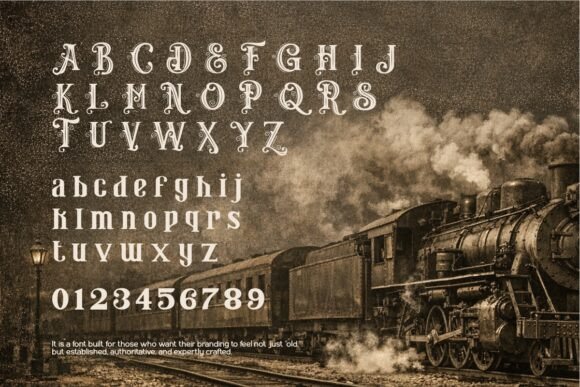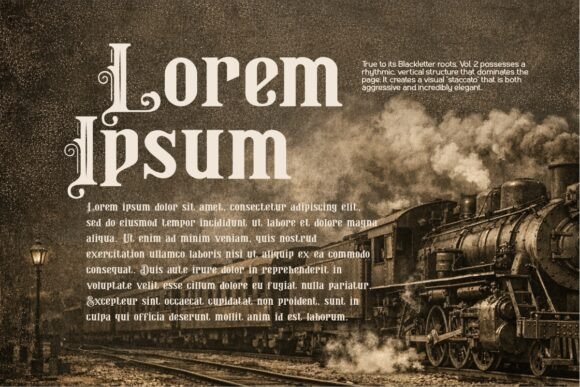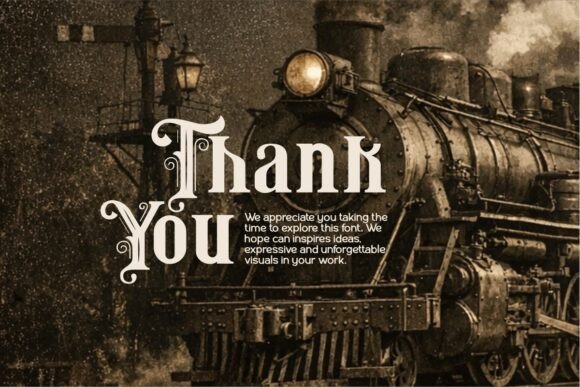
Introduction to Old Victorian Vol 2 Font
Imagine you’re sitting in a quaint antique shop, surrounded by dusty vases and vintage trinkets. As you browse through the shelves, your eyes land on an intricately designed invitation, adorned with the elegant script of the Old Victorian Vol 2 Font. The soft glow of the shop’s lamp highlights the font’s intricate details, transporting you to a bygone era of sophistication and refinement. This is the magic of the Old Victorian Vol 2 Font – a design resource that effortlessly evokes the charm of a bygone era.
As a designer, you understand the value of having a high-quality design resource at your fingertips. The Old Victorian Vol 2 Font is a free download that can add a touch of timeless elegance to any creative project. Whether you’re crafting invitations, signage, or any other project that calls for a dash of historic charm, this font is sure to impress. With its transparent background and high-quality design, you can be sure that your project will stand out from the crowd.
Key Features of Old Victorian Vol 2 Font
- High-quality, vintage-inspired font design ideal for creative projects and design resources.
- Transparent background allows for seamless integration into your design, making it a valuable design resource.
- Unique characteristics include intricate details, ornate flourishes, and classic typography, perfect for adding an old-world charm to your design.
- Designed with high resolution in mind, ensuring it looks crisp and clear on a variety of devices and screen sizes.
Honest Review: Old Victorian Vol 2 Font
I recently stumbled upon the Old Victorian Vol 2 Font and was excited to put it to the test in one of my creative projects. I’m happy to report that it’s a fantastic addition to any design resource collection.
What works well: ✨ The font’s nostalgic feel immediately adds a touch of elegance to any design. I particularly love the wide range of characters available, which makes it perfect for titles and headings. The high quality of the font is also noticeable, even at larger sizes.
What I liked most about this font is its versatility. It’s perfect for creating invitations, greeting cards, or even branding materials. The transparent background option is also a great feature, allowing for seamless integration with any design element.
- Wide range of characters
- Nostalgic feel
- Perfect for titles and headings
Limitations: ⚠️ One thing to note is that the font might not be the best choice for modern or tech-savvy designs, as its vintage aesthetic may clash with more contemporary styles.
Overall, I’m thoroughly impressed with the Old Victorian Vol 2 Font and would highly recommend it to designers looking for a unique and high-quality design resource. It’s definitely worth adding to your collection, especially if you’re working on a creative project that requires a touch of nostalgia.
Design Resource for Creative Projects
The Old Victorian Vol 2 Font is a high-quality design resource ideal for creative projects, such as invitations, posters, and business cards. Its elegant and vintage style makes it perfect for adding a touch of sophistication to your designs.
Transparent Background and High-Quality Output
The Old Victorian Vol 2 Font features a transparent background, making it easy to place on any design element. When used in conjunction with a high-quality image or background, the font produces stunning results.